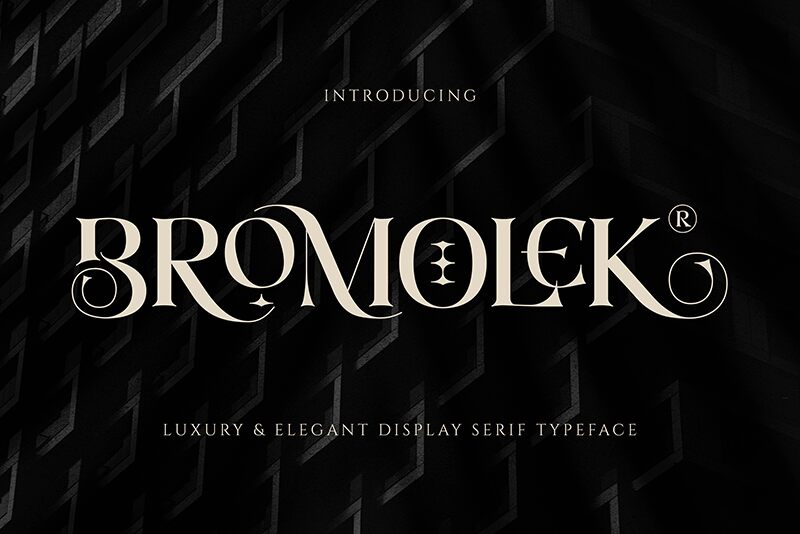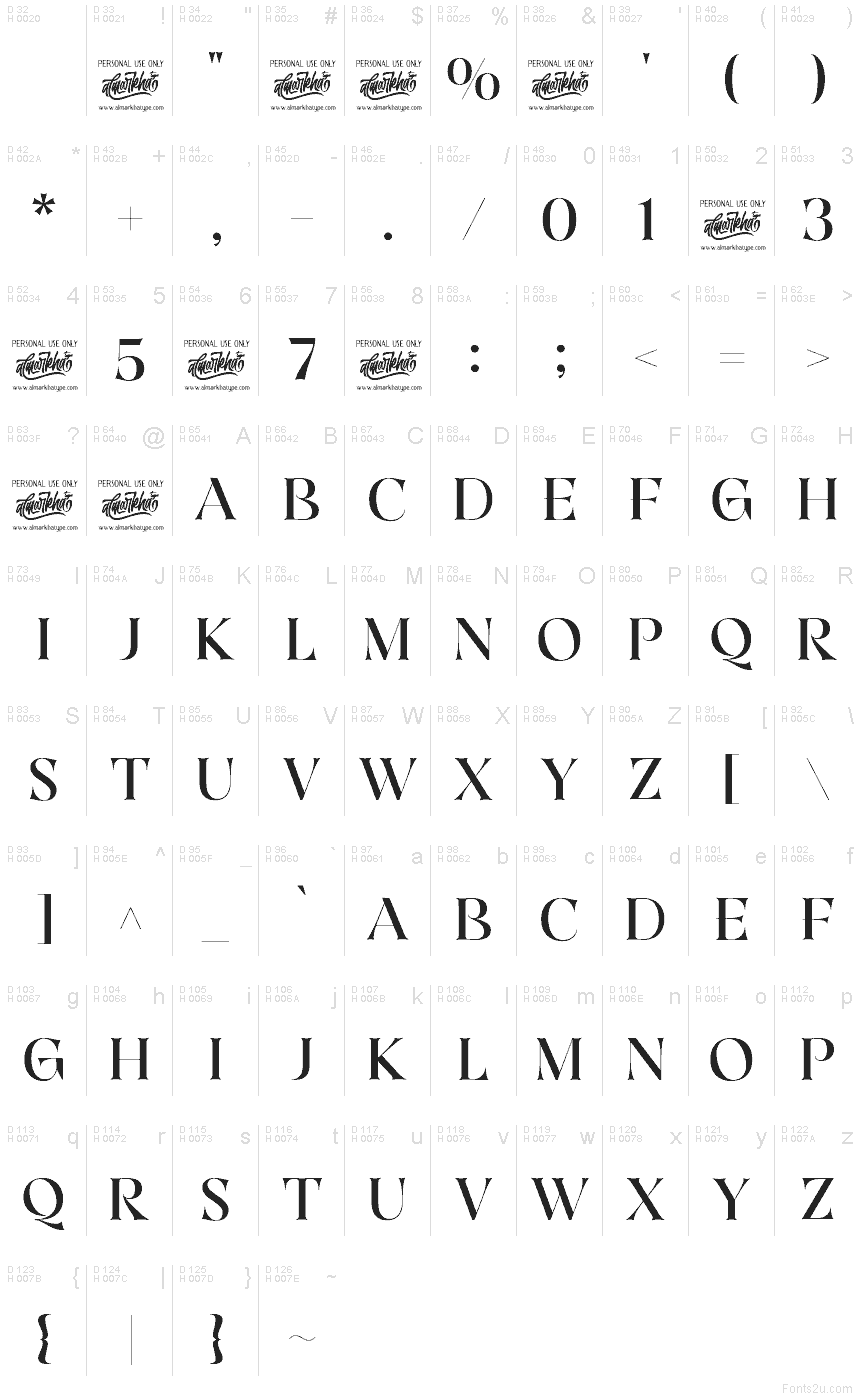
Bromolek font by Almarkhatype Studio is a free serif font that feels both sculpted and theatrical. Its tall, poised letters combine velvety curves with razor-edged cuts, so every word looks like it’s been chiseled from ink. The dramatic thick-and-thin strokes create a sense of movement, giving headlines a luxurious, editorial presence without feeling fussy or old-fashioned.
Using Bromolek, you can give instant drama to magazine covers, fashion branding, book jackets, cosmetics packaging, posters, and striking social graphics. This free font shines at large sizes, where its sharp details and sweeping shapes can really breathe. Pair Bromolek with a clean geometric sans for body copy, letting the serif handle the showpiece moments while the sans keeps everything readable.